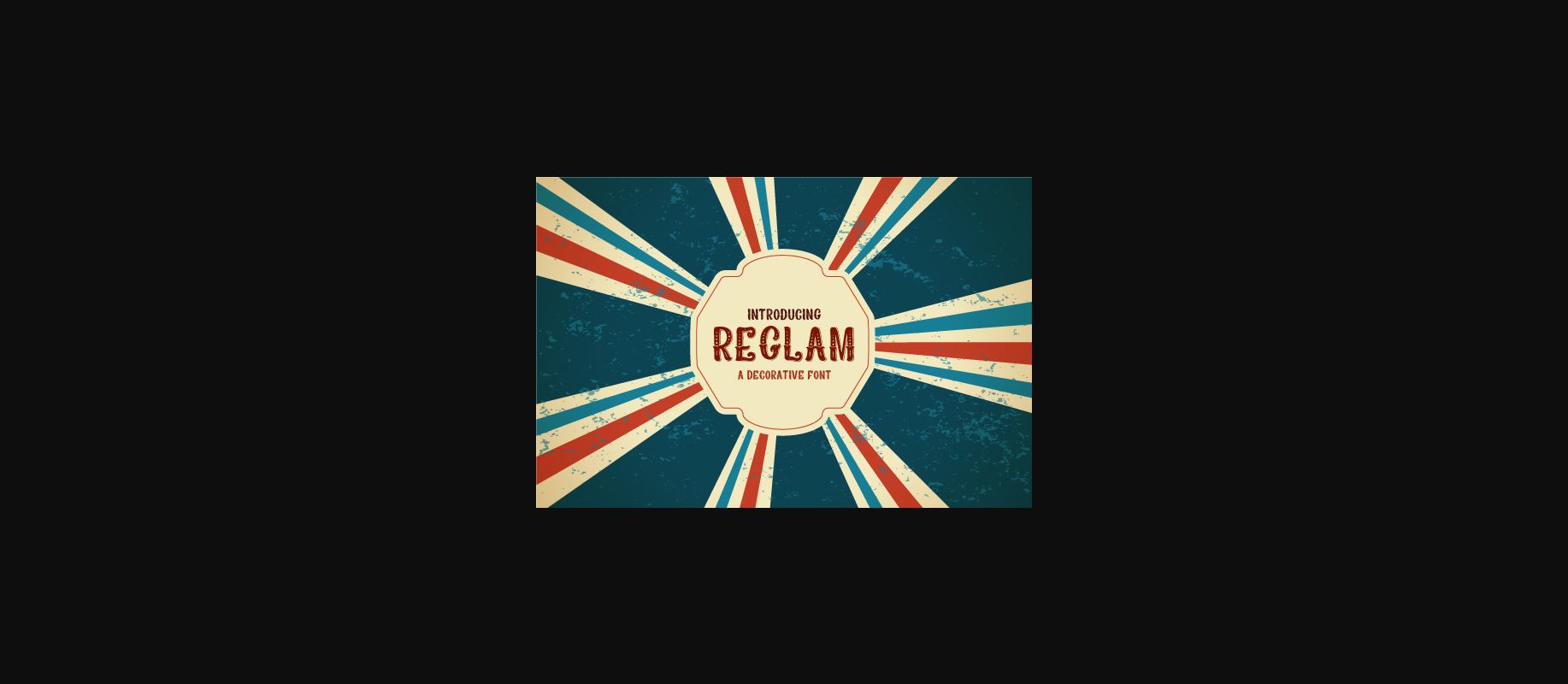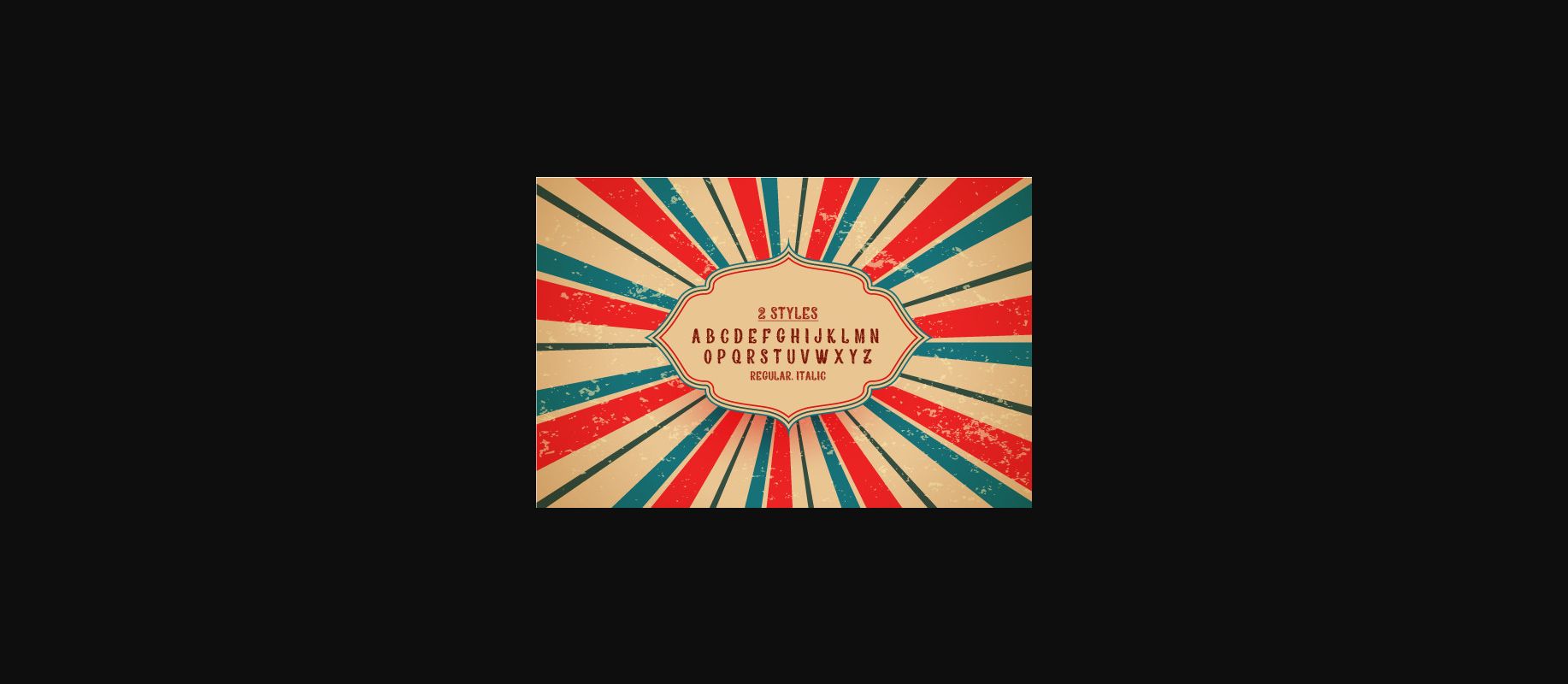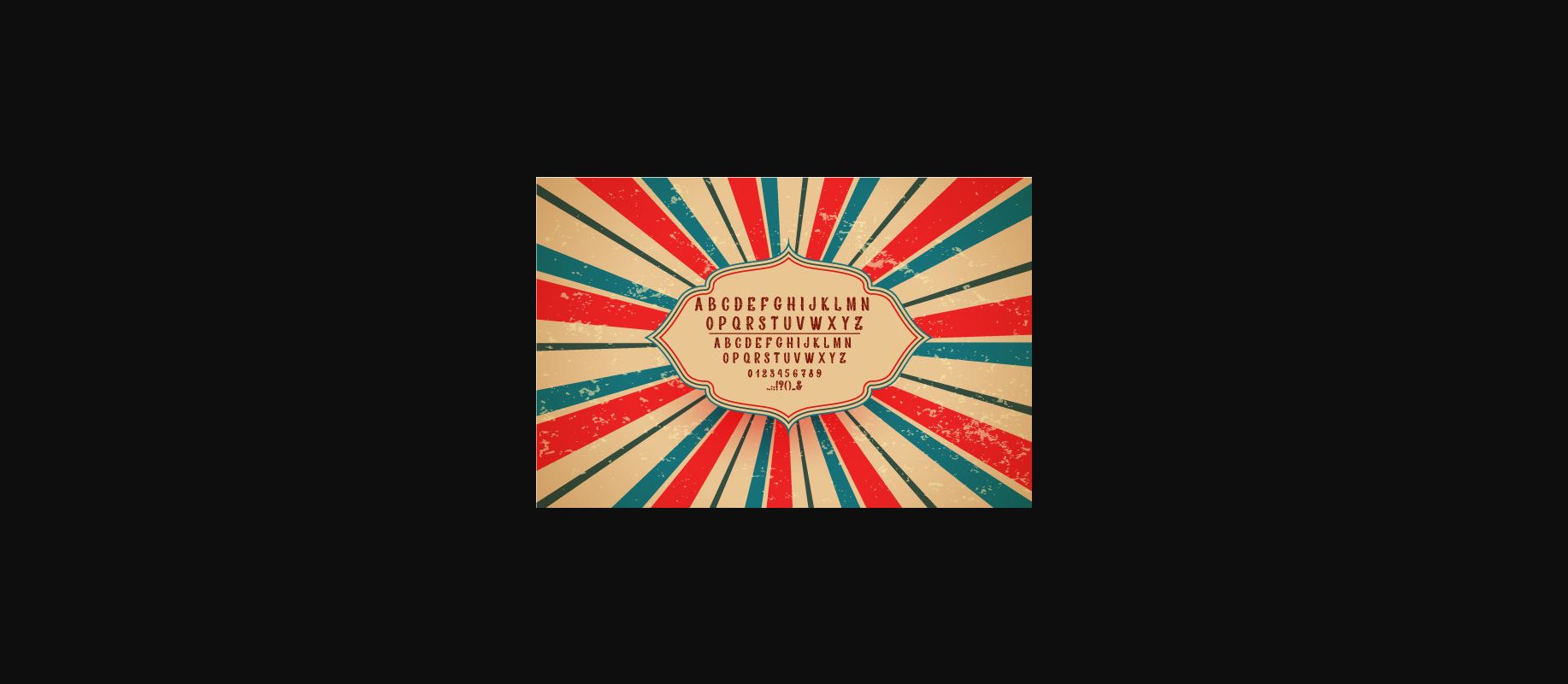
Reglam is a retro-inspired decorative font that exudes elegance and glamour. Reglam is a versatile font that can be used in various design projects, from high-end fashion and beauty branding to elegant wedding invitations and event posters. The font is perfect for those who want to add a touch of grace and charm to their designs.